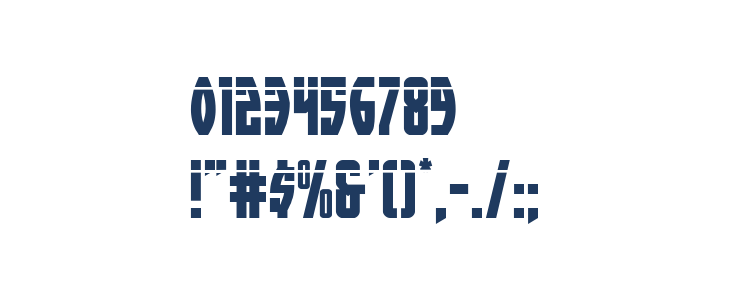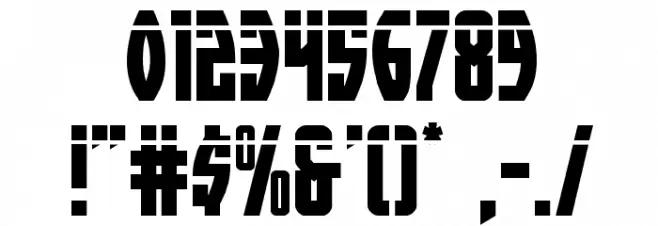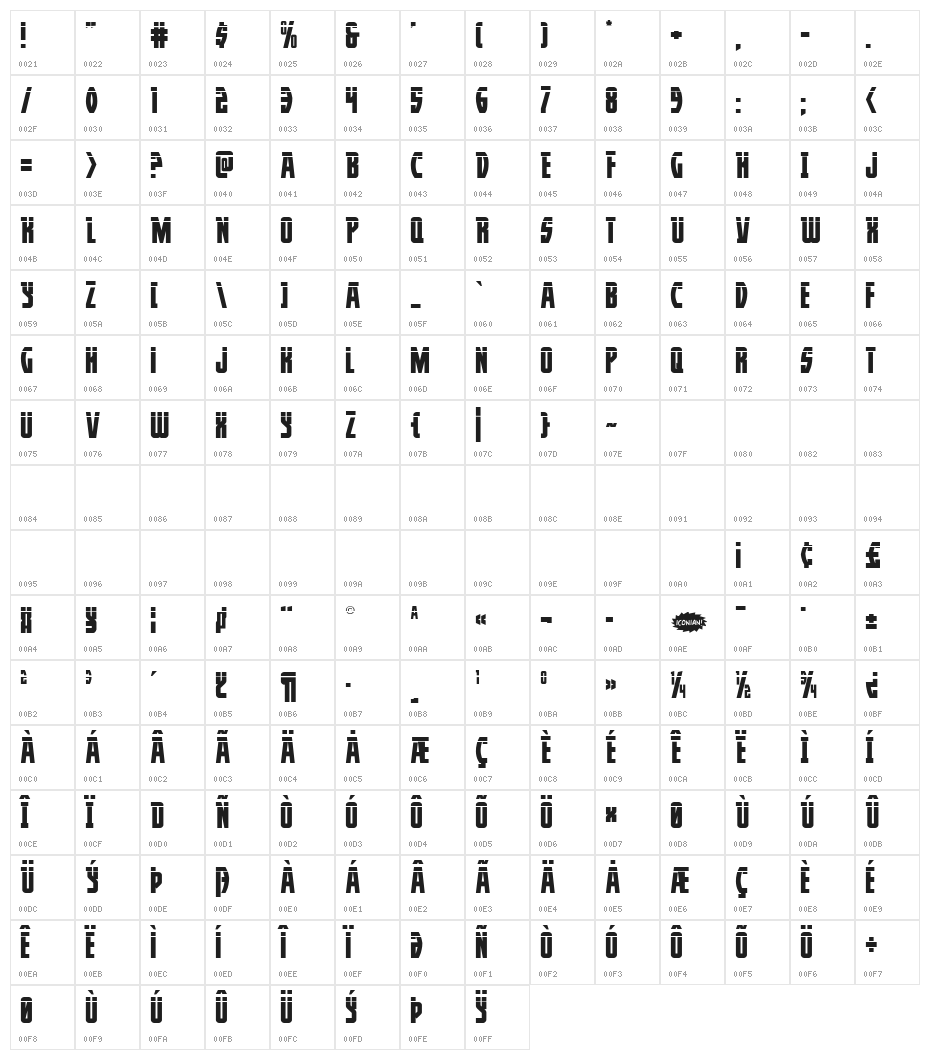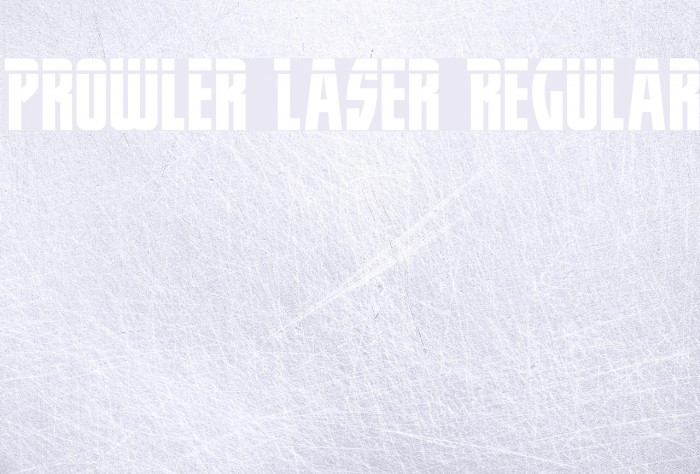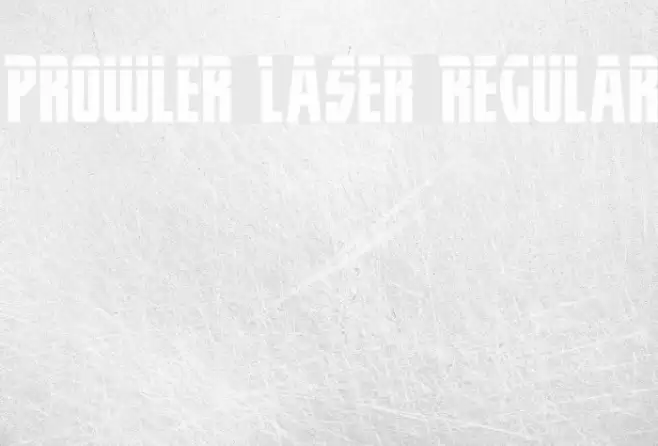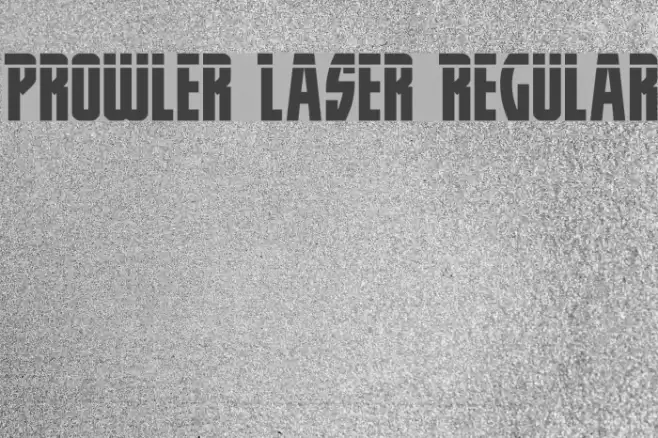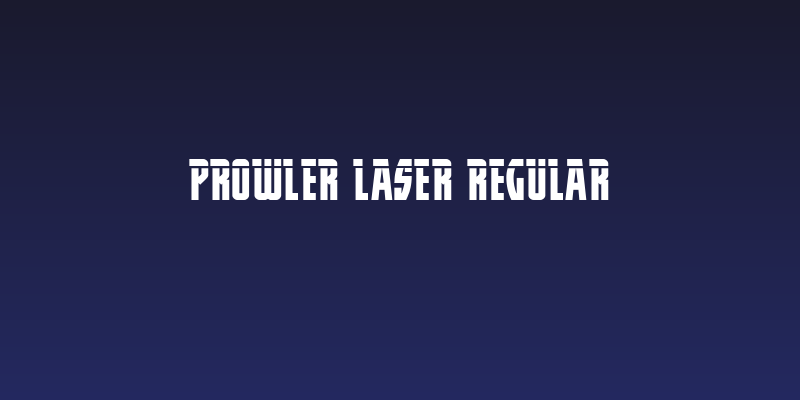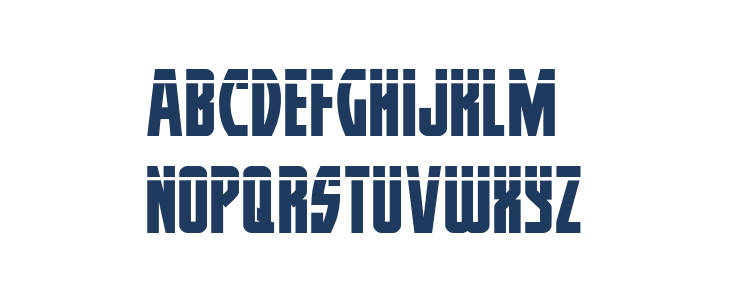
Prowler Laser Regular Font
Prowler Laser Regular Description
This font features a bold and futuristic design with sharp, angular edges and a distinct geometric style. The characters are tightly spaced, creating a compact and cohesive appearance. The uppercase and lowercase letters maintain a consistent height, enhancing the uniformity of the typeface. The numbers and special characters follow the same angular and bold design, making them stand out. This font's unique style is reminiscent of a digital or sci-fi aesthetic, suitable for projects that require a modern and edgy look.
| Proposed Projects | Ideal for sci-fi movie posters, video game titles, tech branding, and futuristic-themed designs. |